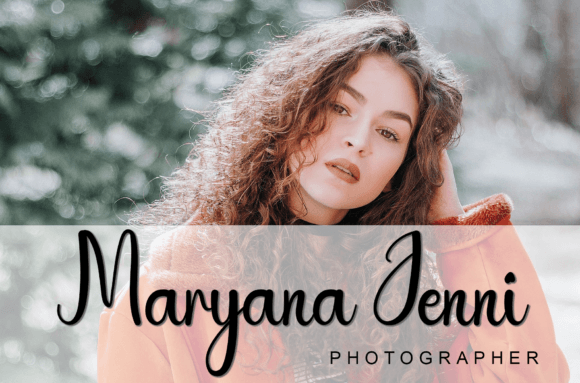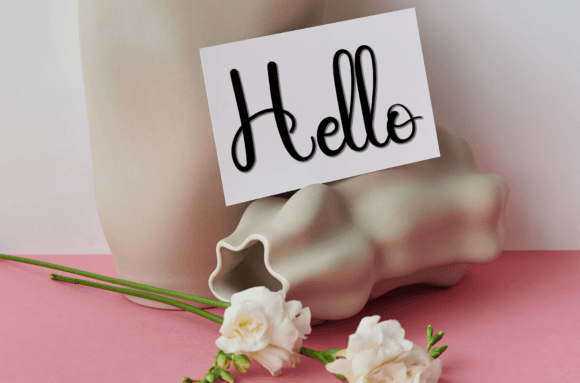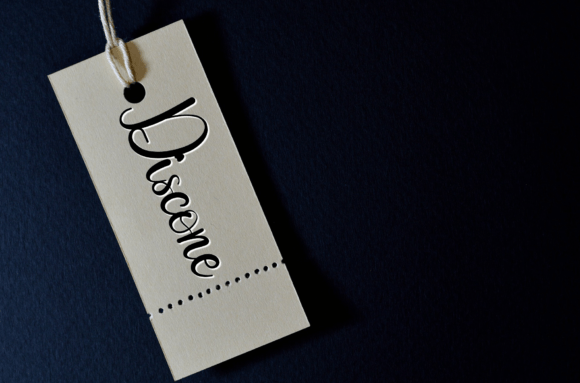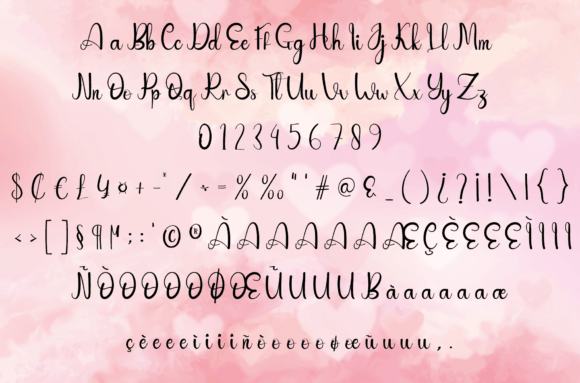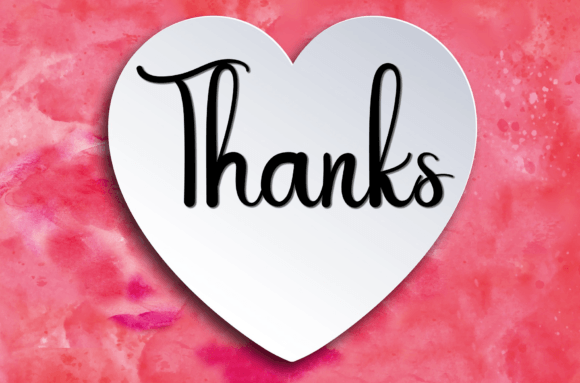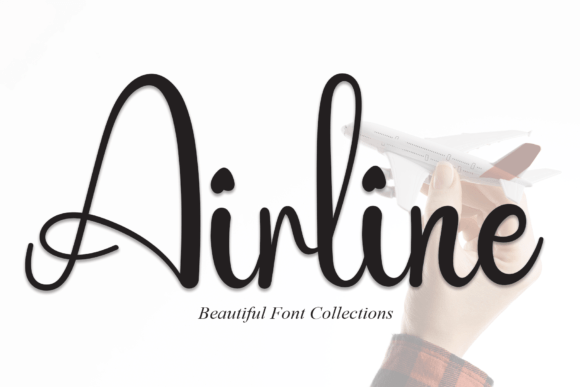
The Ultimate Guide to Airline Font: Elevate Your Designs with a Friendly Handwritten Style
An Honest Review of Airline Font
What I Love About Airline Font ✨
- ✅ Unique yet approachable: Airline has a distinct personality that sets it apart from more generic fonts.
- ✅ Highly legible: Even at smaller sizes, Airline remains clear and easy to read.
- ✅ Versatile: Whether you’re working on a branding project, crafting a social media graphic, or designing a website, Airline adapts beautifully.
- ✅ OpenType features: Airline supports a range of OpenType features, including stylistic alternates and glyphs, which can add an extra layer of creativity to your designs.
- ⚠️ Limited use in formal contexts: While Airline is incredibly versatile, its friendly, handwritten nature might not be suitable for very formal projects, such as academic papers or corporate reports.
- ⚠️ Overuse can be a pitfall: As with any font, using Airline excessively across a design can make it feel less special. Use it thoughtfully to maintain its impact.
The Backstory of Airline Font
Airline was designed with the intention of creating a font that feels both personal and professional. The designer aimed to craft a font that could be used across various platforms, from digital media to print, and still maintain its charm. The result is a font that’s not only aesthetically pleasing but also highly functional.
| Font Name | Airline Font |
| Is Airline suitable for body text? | While Airline is legible, it’s best used for headings and short paragraphs. For longer body text, consider pairing it with a more traditional font. |
| Does Airline support OpenType features? | Yes, Airline supports various OpenType features, including stylistic alternates and glyphs, which can enhance your designs. |